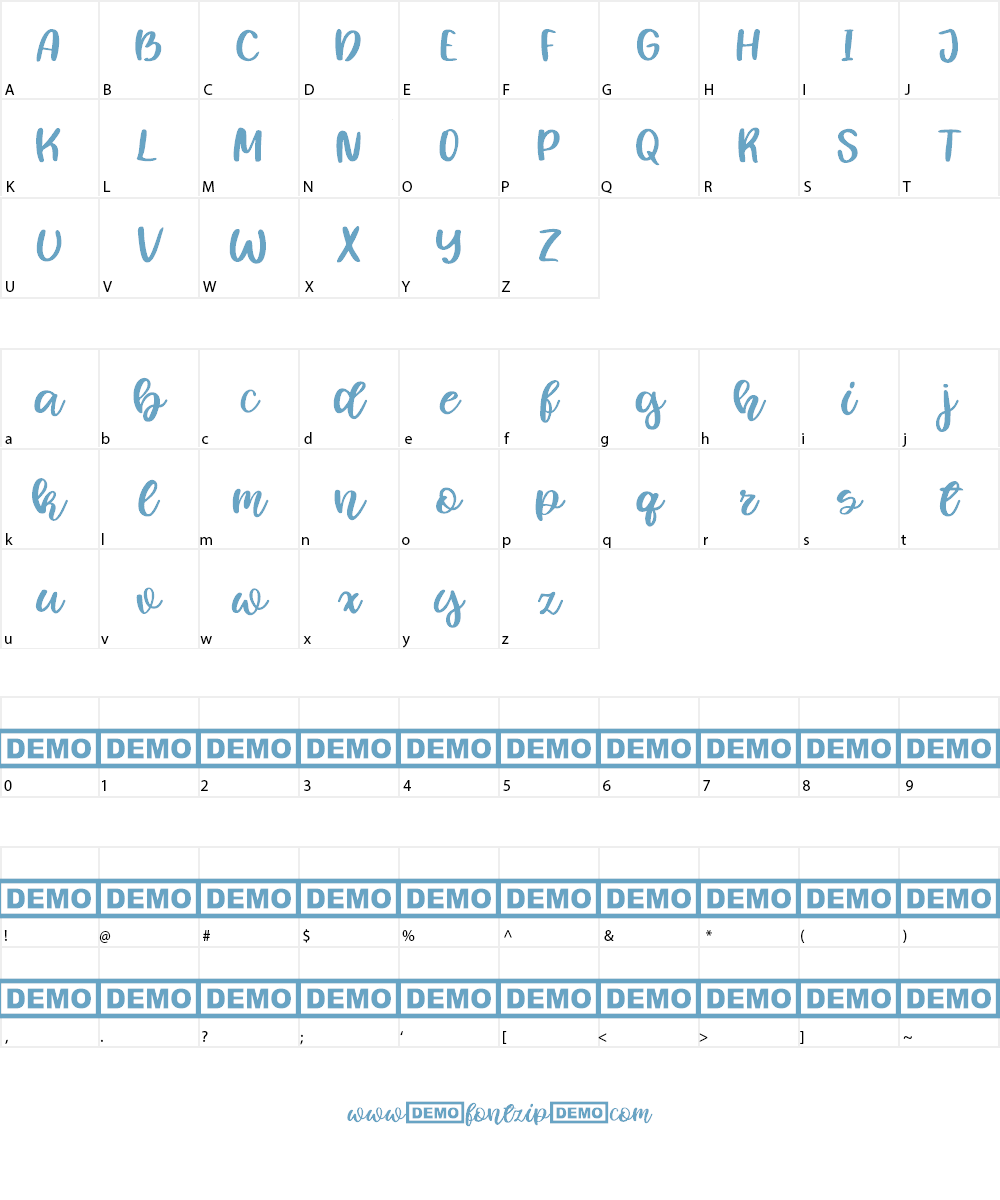
Meet my new font Fowler with its pleasant and charismatic style, wich simulates natural handwriting. Fowler** is perfect for headings, logos, wedding invitation, fashion design, t-shirt, letterhead, signage, lettering quotes, posters, badges and any more.
Full version of Fowler comes with uppercase, lowercase, standard punctuation, numerals, special letters for most of the European languages and cyrillic typeface.